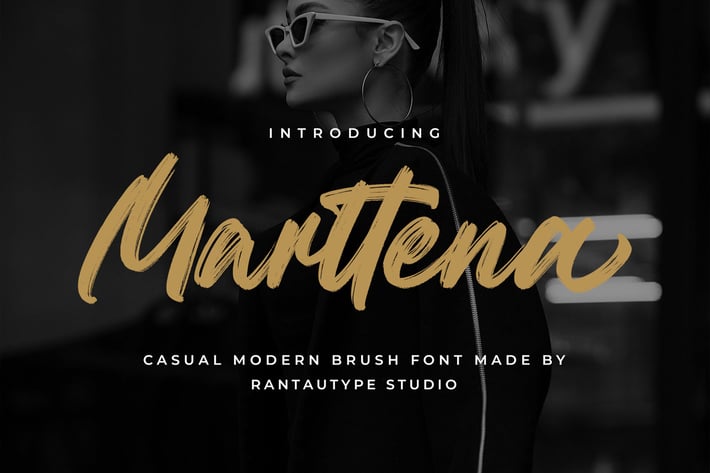
Marttena Casual Modern Brush Font
Marttena is casual and modern brush font with stylish character. Marttena is a perfectly choice for any creative endeavor, creating, modern, chic, lifestyle design such as logotype, title, cover, branding, invitations, wedding designs, display and magazine, social media posts, advertisements, printed quotes, product packaging, corporate brand, product designs, labels, photography, watermarks, special events and any other project with handwritten touch.
+ Ligature and alternate
Fonts include multilingual support for: Afrikaans, Albanian, Basque, Bemba, Bena, Breton, Catalan, Chiga, Cornish, Danish, Dutch, English, Estonian, Filipino, Finnish, French, Galician, German, Icelandic, Indonesian, Irish, Italian, Kinyarwanda, Luxembourgish, North, Norwegian, Portuguese, Romansh, Rombo, Rundi, Scottish, Gaelic, Sena, Shambala, Shona, Soga, Somali, Spanish, Swahili, Swedish, Swiss, German.